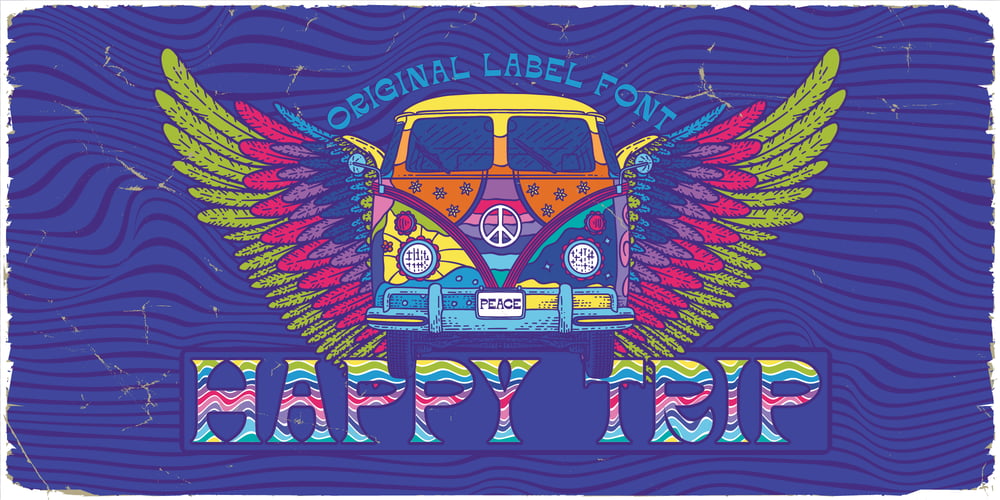
Happy Trip Font Family was designed by Oleg Voznyy and published by Vozzy. Happy Trip contains 7 styles and family package options. Introducing vintage label font named Happy Trip. This font has a wide languages support with west european and cyrillic characters (check out all available characters on previews). The font familty has six styles: Regular, Aged, Texture, Outline and three colorful styles. This font will look good on any vintage styled designs like a poster, T-shirt, label, logo, etc.